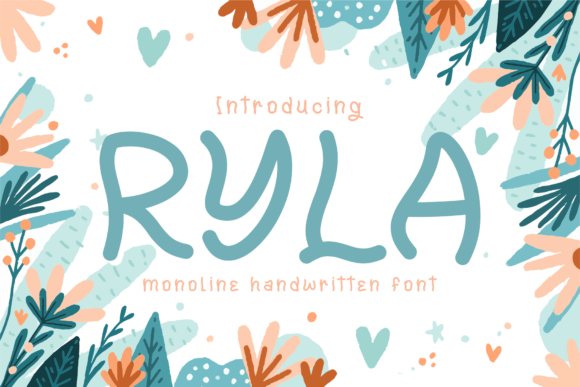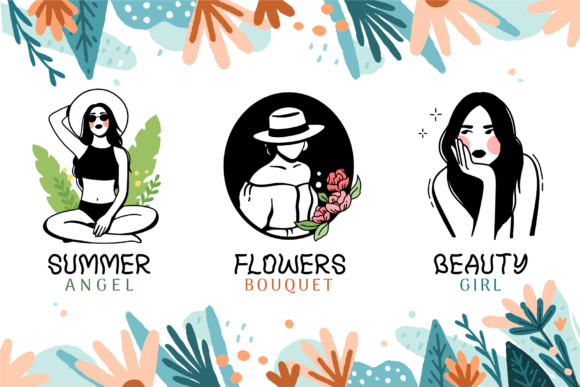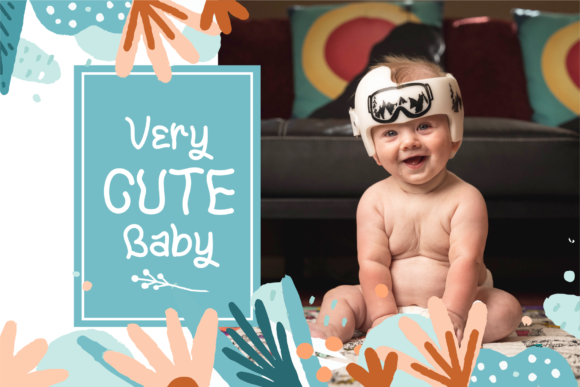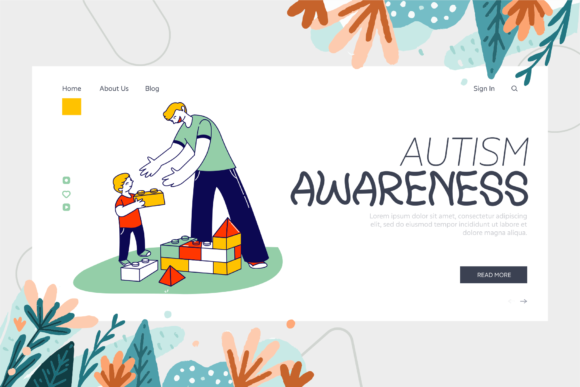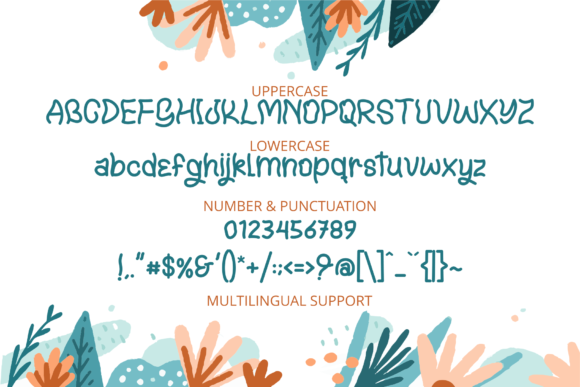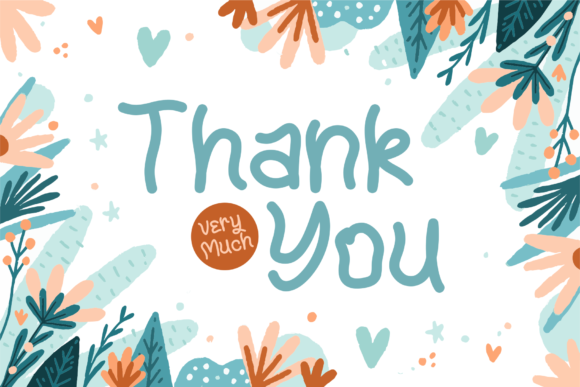
Ryla Font
About Ryla Font
Ryla is a cute and whimsical handwritten font. It looks beautiful on a variety of designs requiring a personalized style, such as wedding invitations, thank you cards, letters, greeting cards, logos and so on.